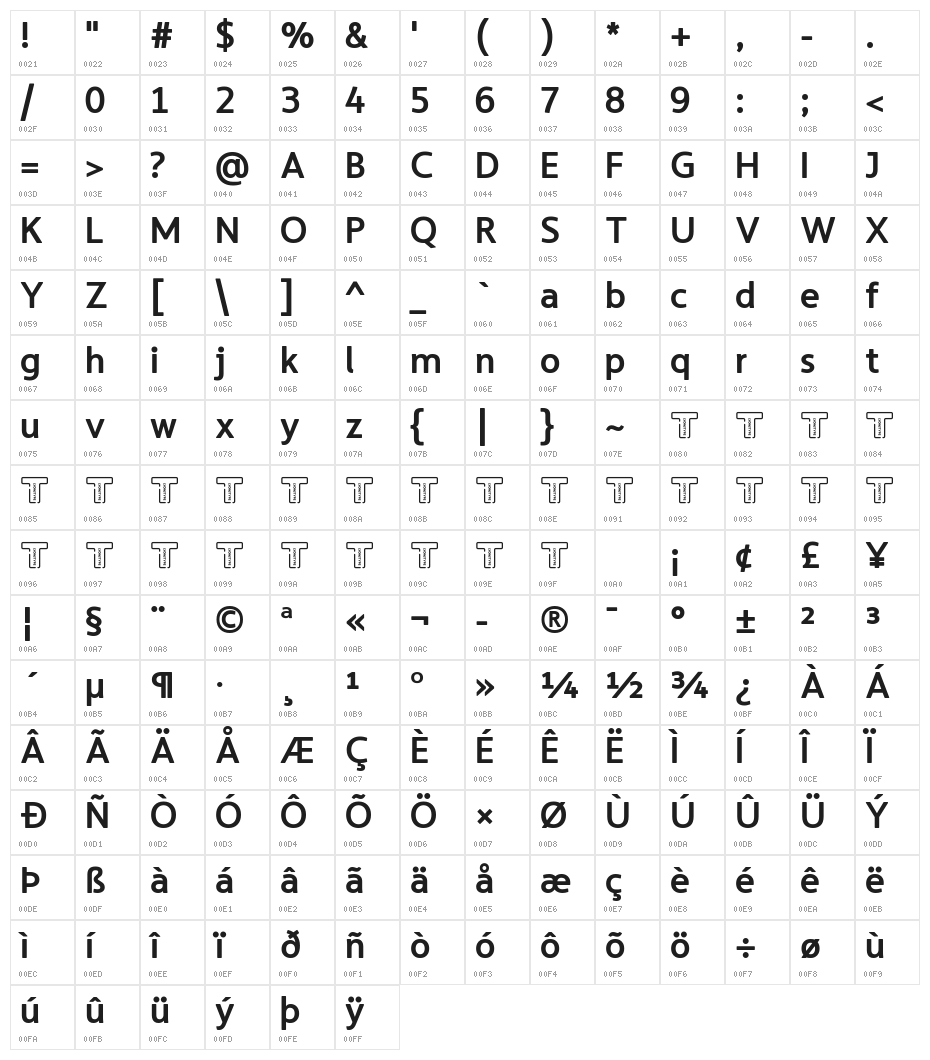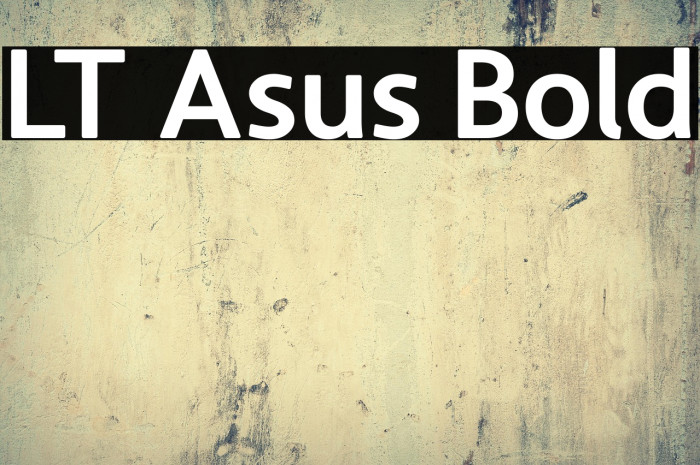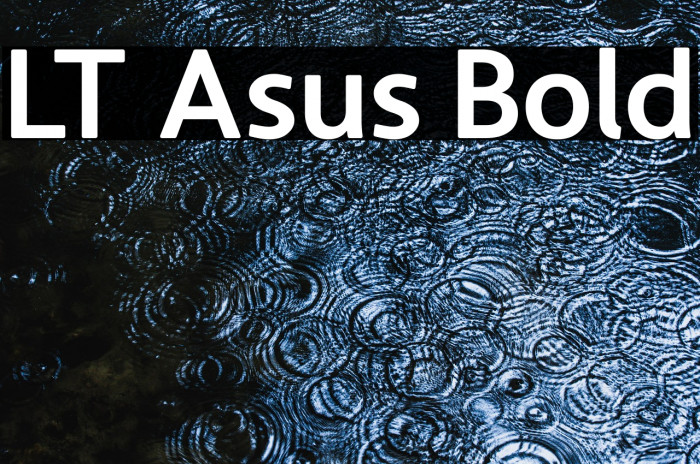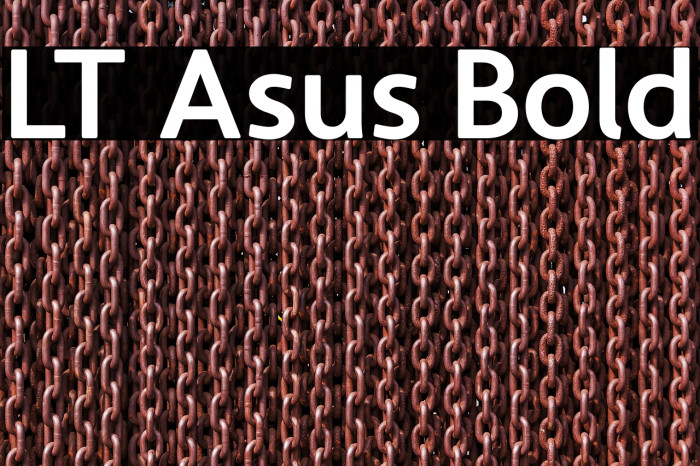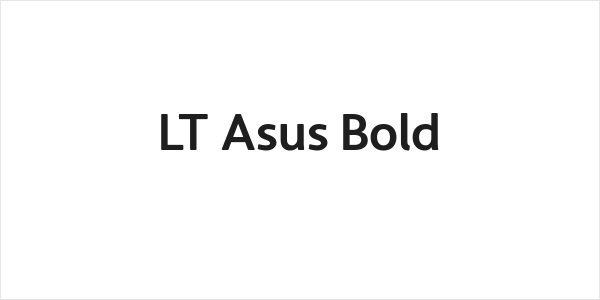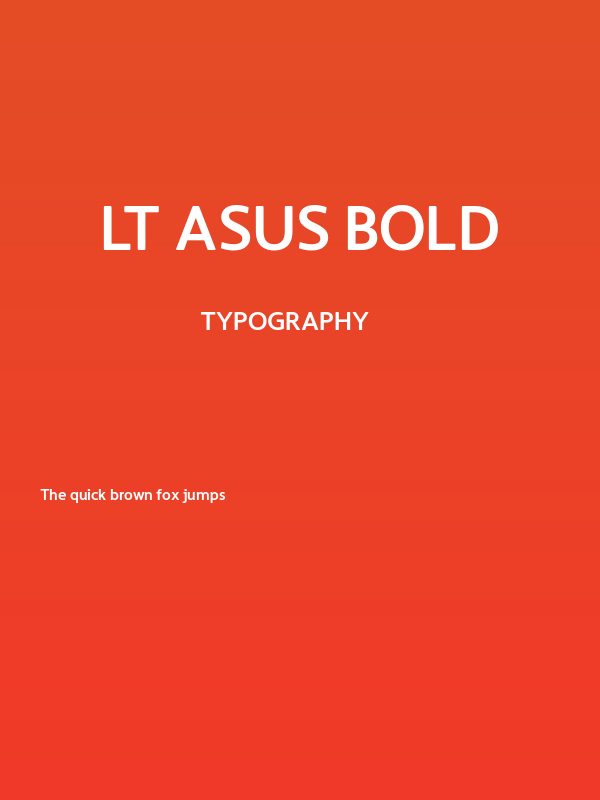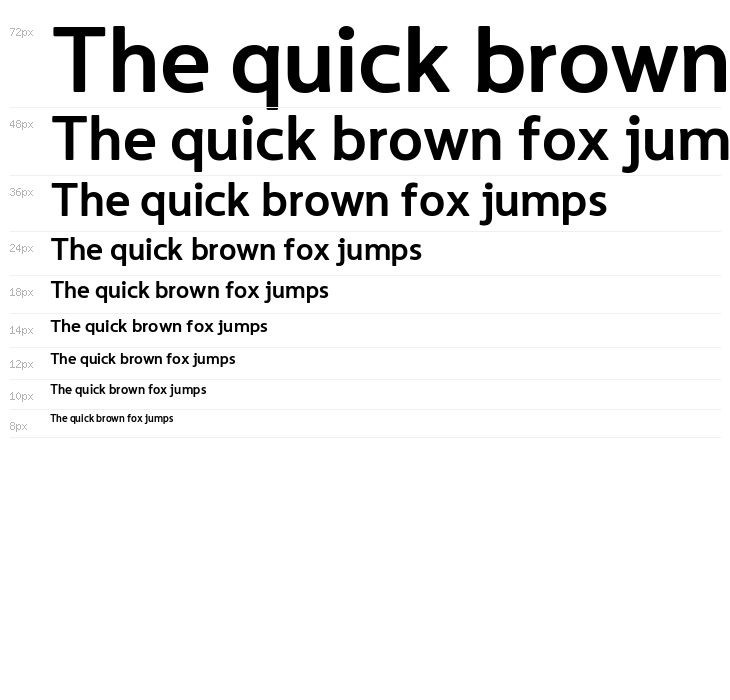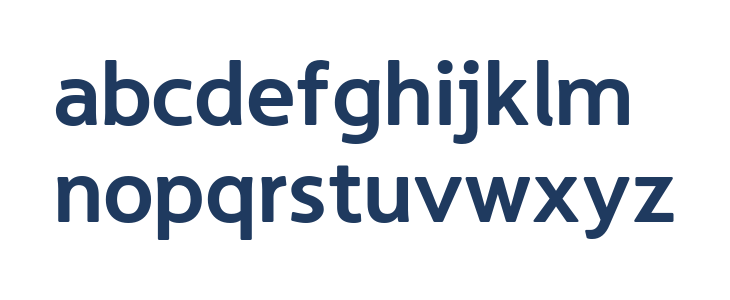
LT Asus Bold Font
LT Asus Bold Description
This font features a clean and modern sans-serif design, characterized by its bold weight and straightforward structure. The letters are evenly spaced, providing a balanced and harmonious appearance. The uppercase and lowercase characters maintain a consistent style, with rounded edges that add a touch of softness to the overall look. The numerals are clear and legible, making them suitable for various applications. Special characters are included, ensuring versatility in usage. This font is ideal for projects that require a contemporary and professional aesthetic.